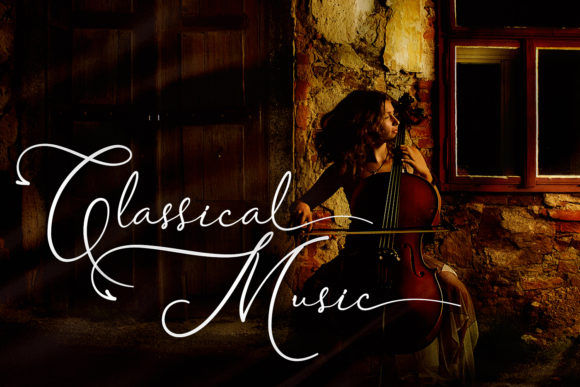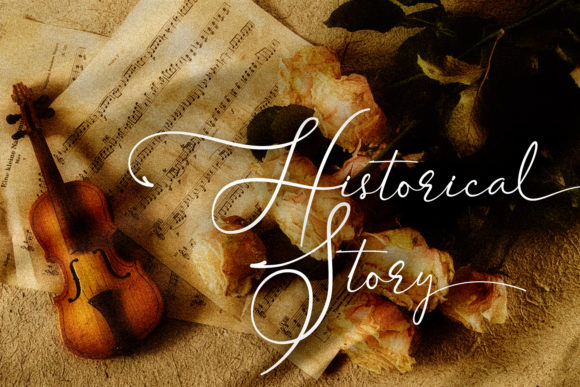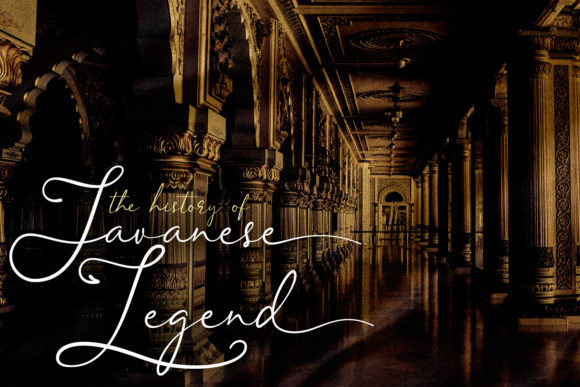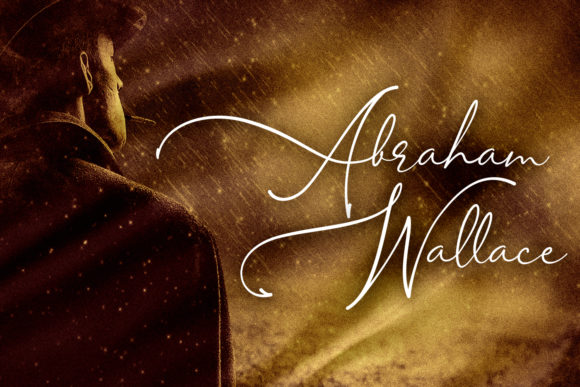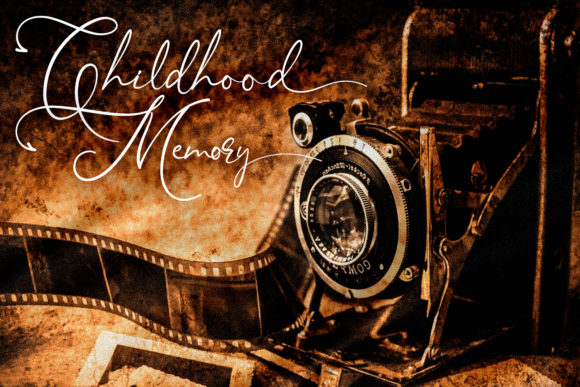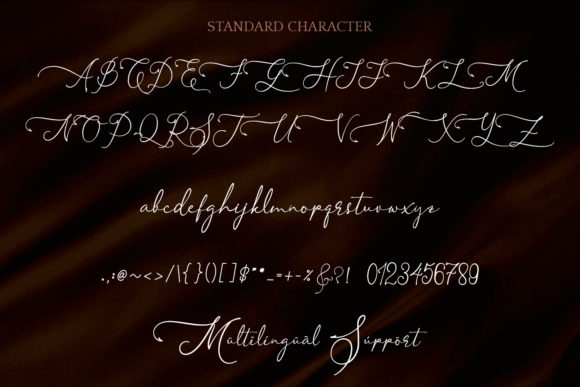
Introduction to Asmelina Harley Font Font
Fonts play a crucial role in design, and the Asmelina Harley Font font is a typeface that brings both character and versatility to any project. Whether you’re working on a branding project, a website, or a print design, the Asmelina Harley Font font offers a unique style that can elevate your work.
Asmelina Harley is a stunning handwritten font with fantastic swashes.
Get inspired by its romantic flair .
Key Features of Asmelina Harley Font Font
Why Choose Asmelina Harley Font Font?
The Asmelina Harley Font font is more than just a typeface – it’s a design tool that helps you communicate your message with style and clarity. Its unique character set and versatile design make it suitable for a wide range of applications, from elegant invitations to bold headlines.
With its carefully crafted letterforms and balanced proportions, the Asmelina Harley Font font ensures readability and visual appeal across all mediums.
What makes Asmelina Harley Font font special?
The Asmelina Harley Font font stands out with its unique design, exceptional readability, and versatility across various design applications.